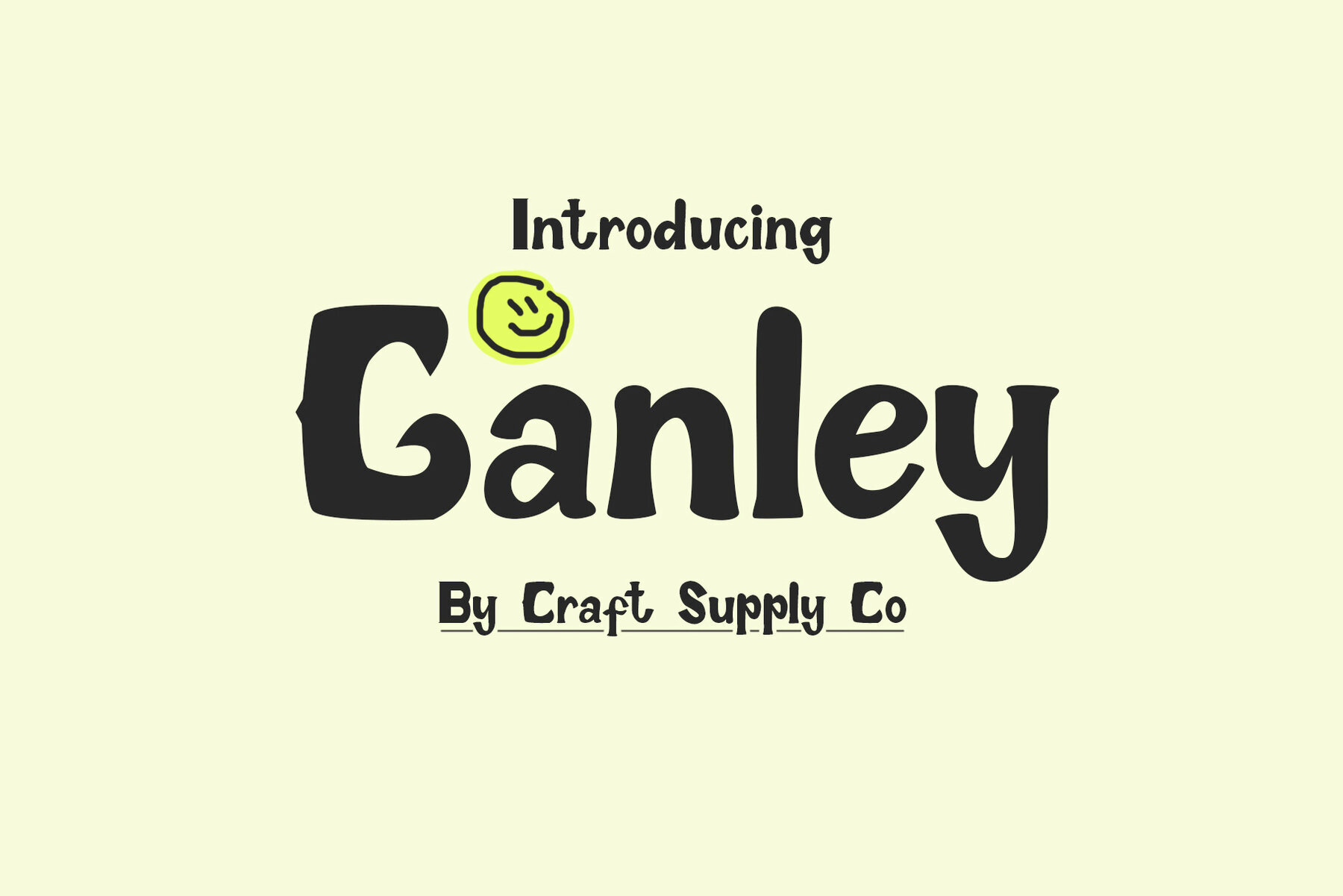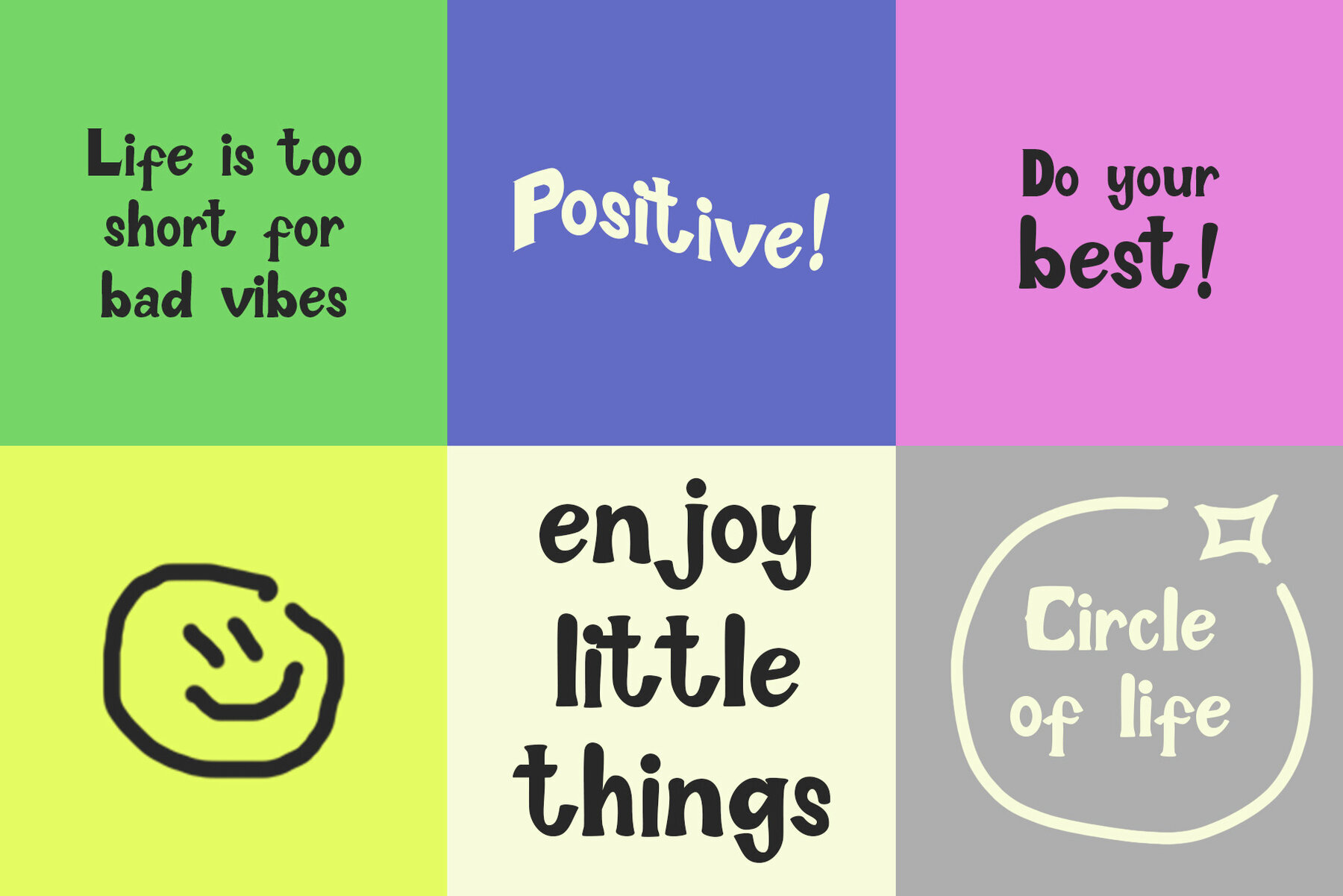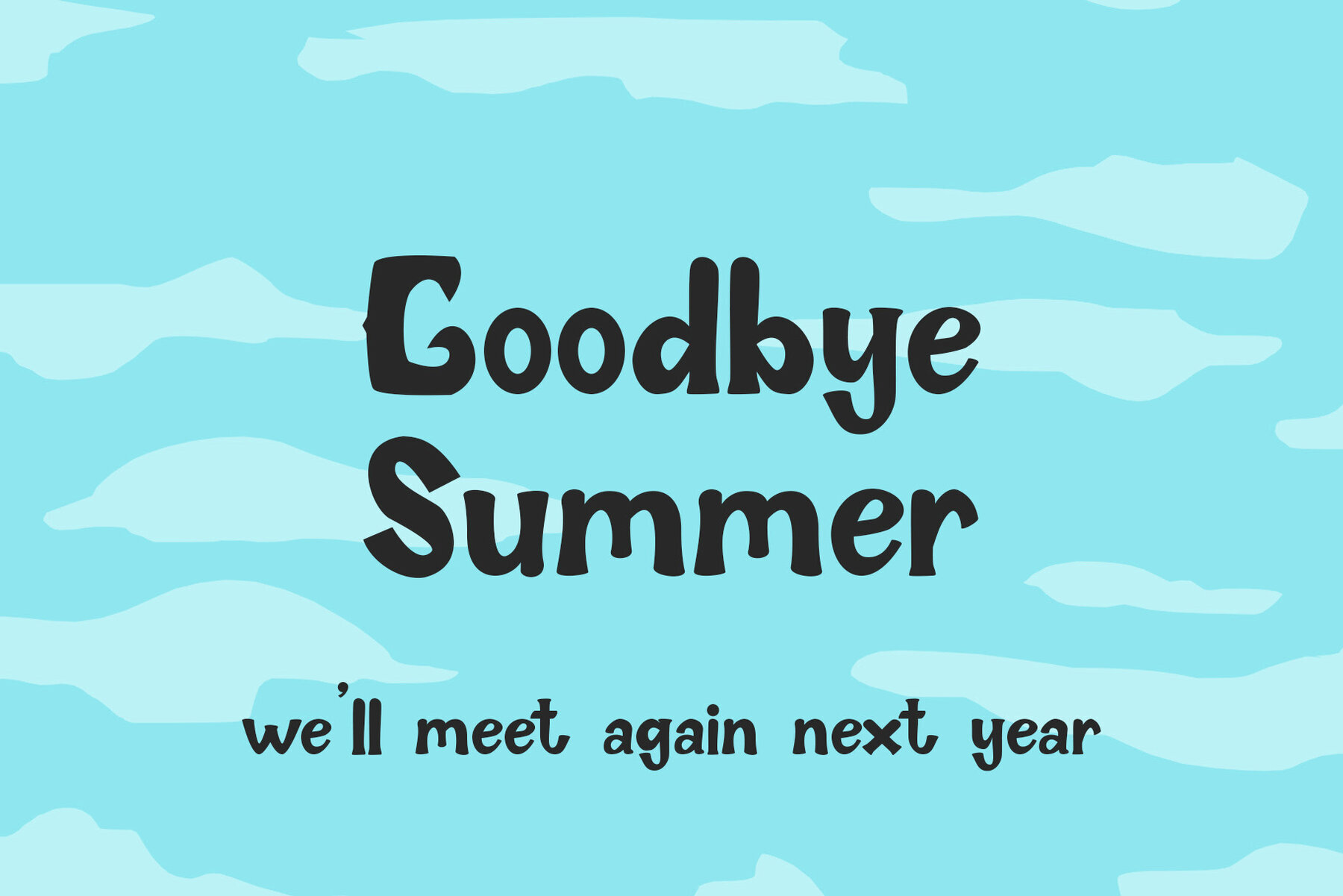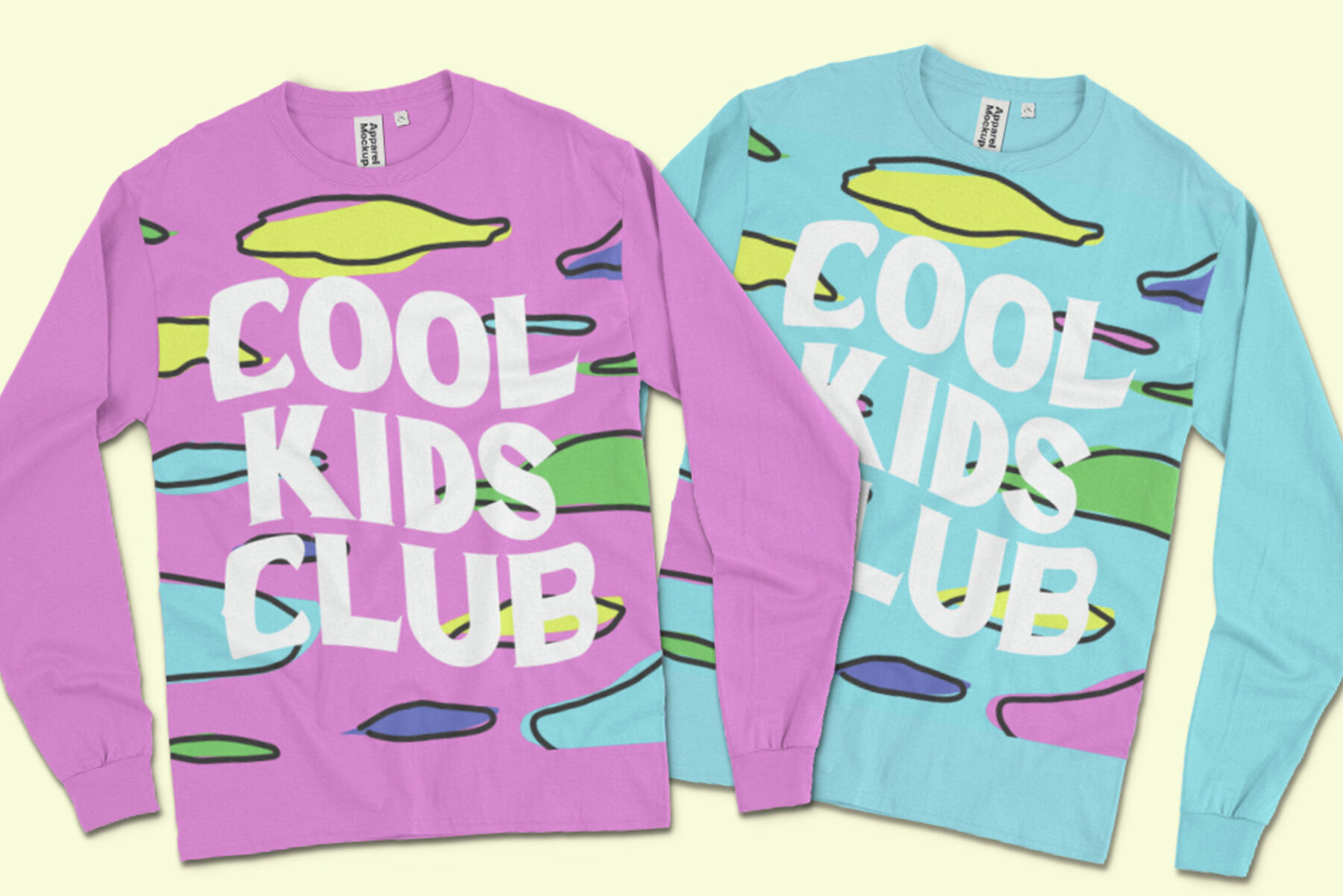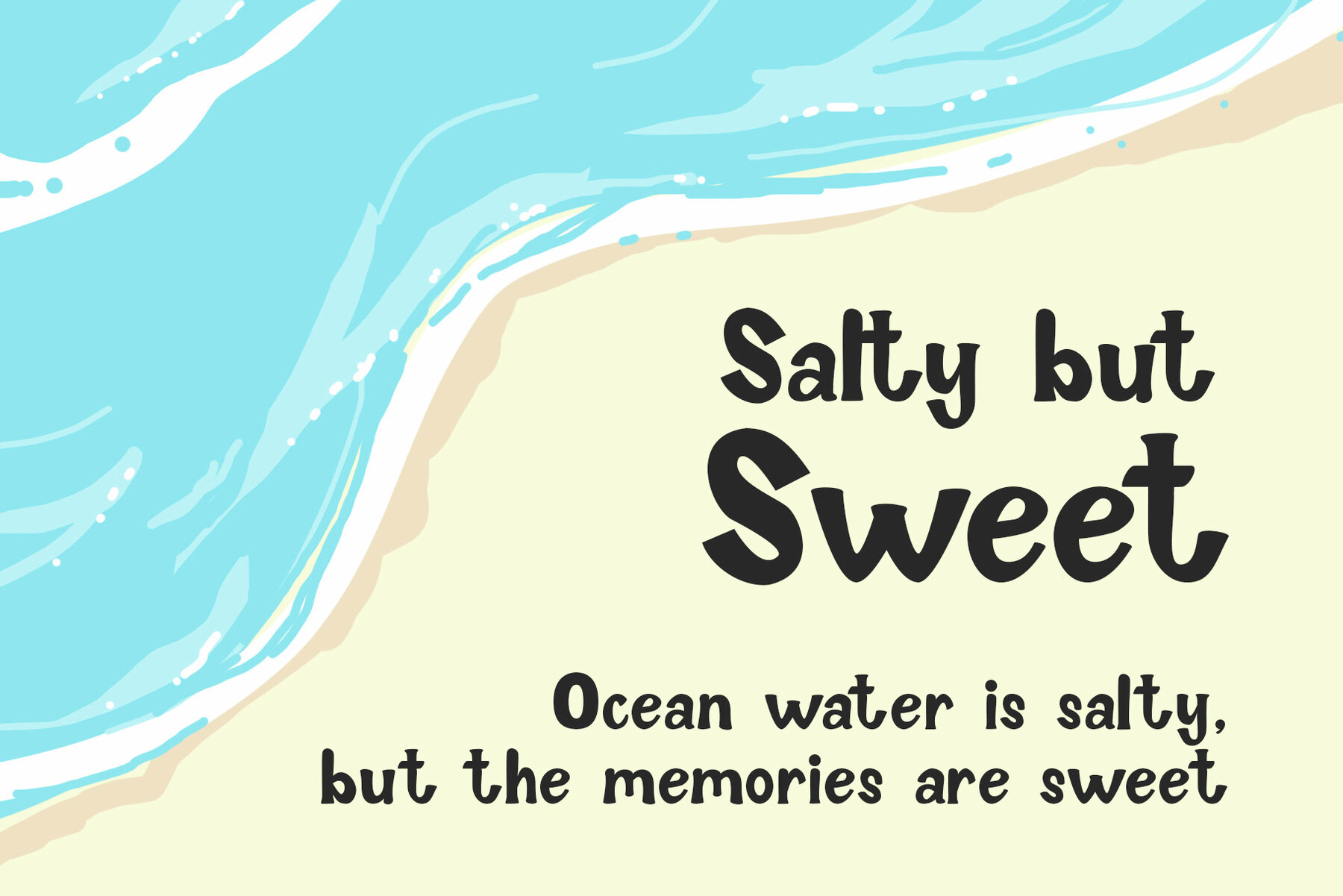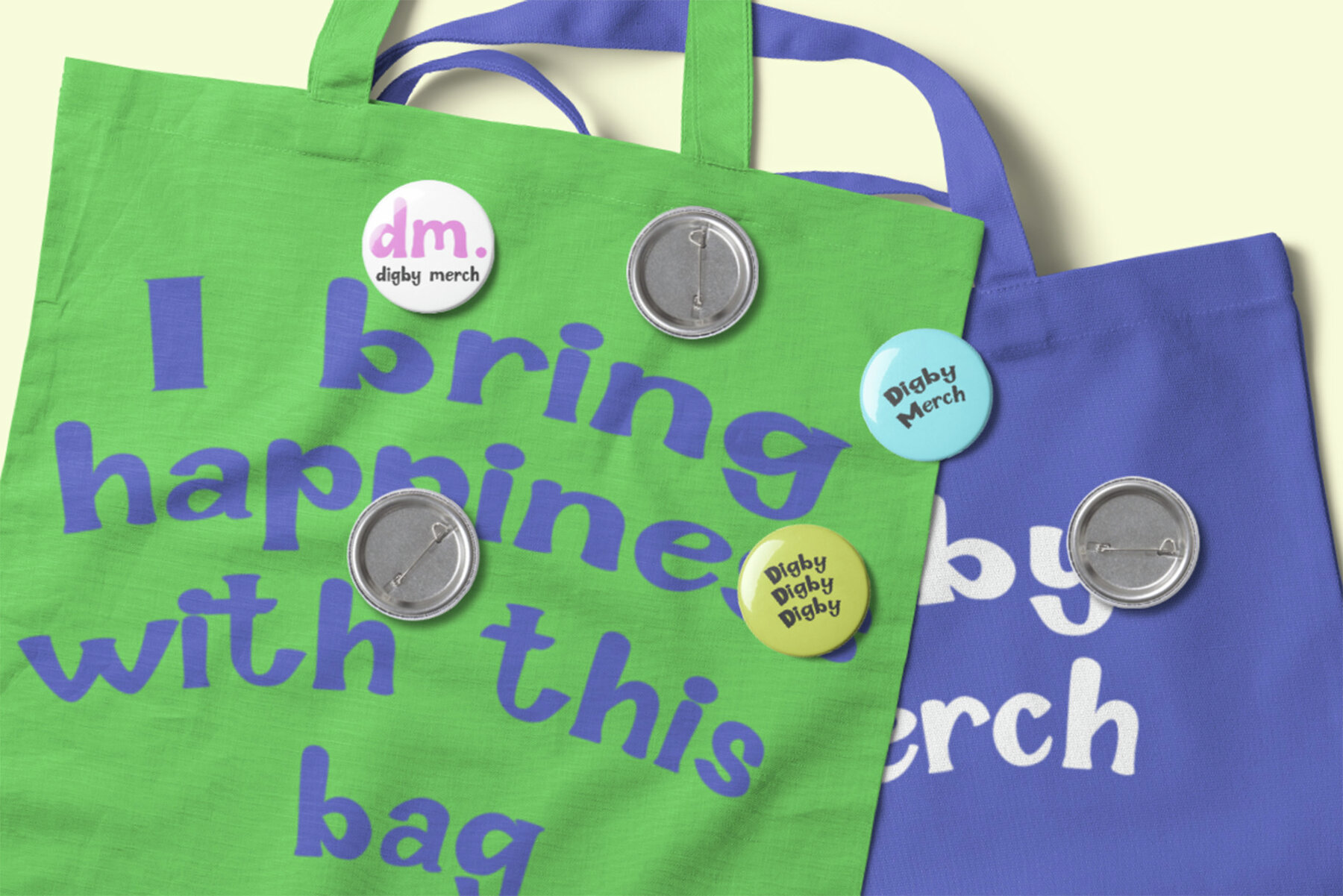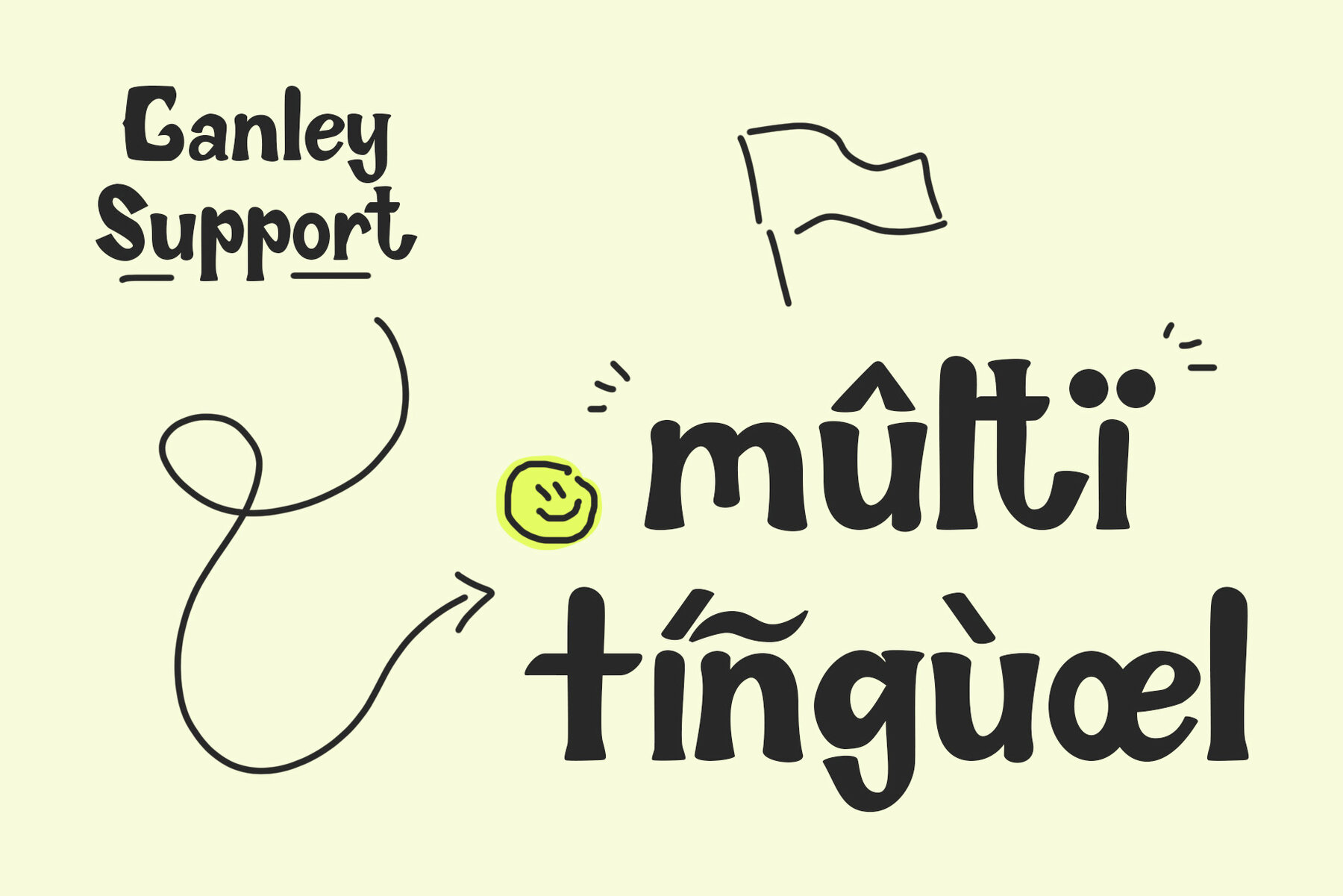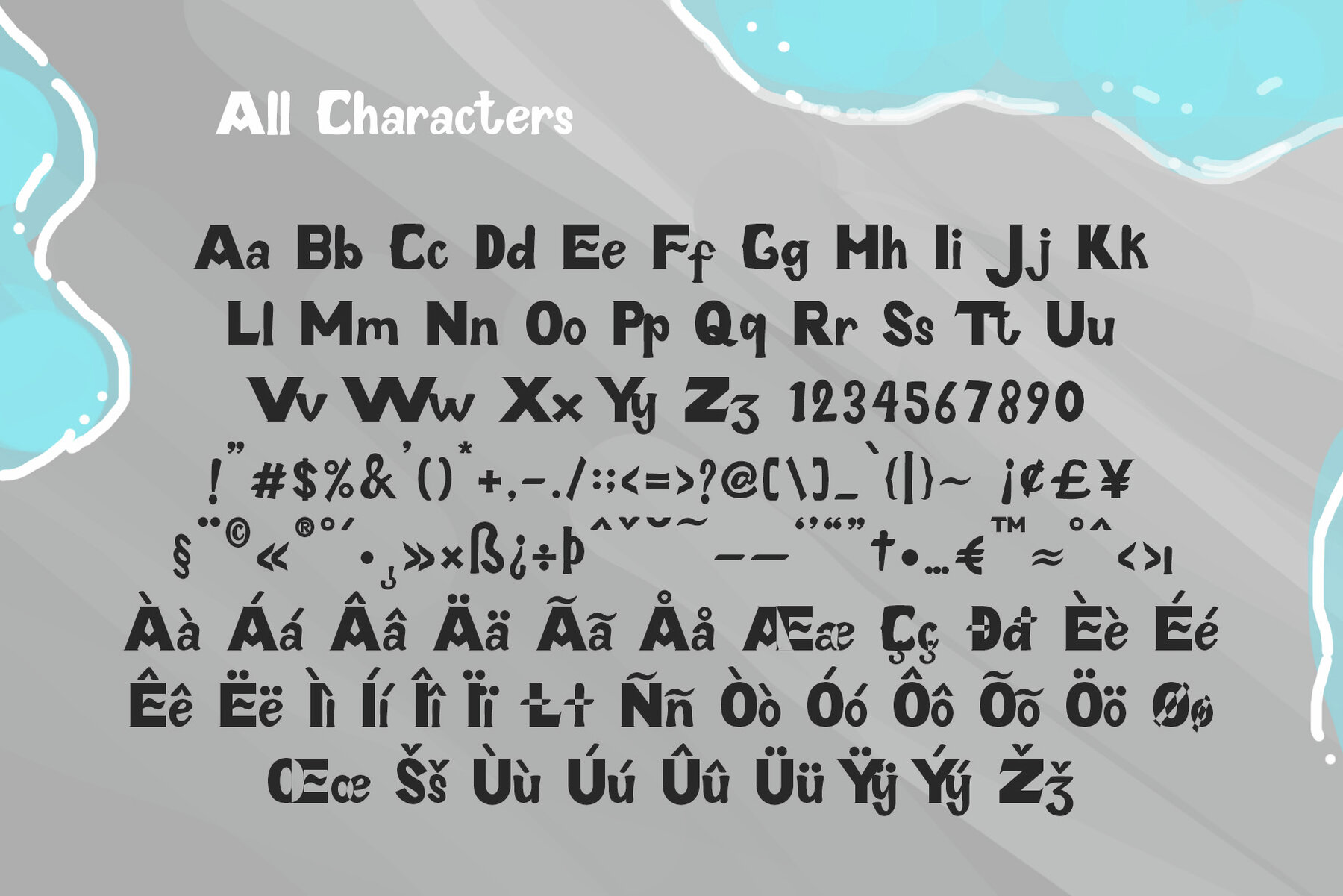
Ganley Font
Ganley Regular
Ganley cute font is a contemporary display font that radiates fun and playfulness, making it perfect for children’s themes and light-hearted designs. Ganley’s design is characterized by whimsical and cheerful letterforms. Its cute and quirky appearance instantly adds a touch of joy to any project. The font embodies a sense of innocence and laughter. This font maintains readability while embracing a delightful style. The letter spacing and proportions are thoughtfully crafted for easy comprehension, ensuring that children can enjoy reading and interacting with it. Ganley isn’t limited to just one application. It’s a versatile font that suits various creative endeavors, from children’s books and posters to party invitations and websites. Its adaptability knows no bounds. Ganley cute font is a font that spreads happiness and positivity. Its cheerful demeanor and contemporary charm resonate with audiences of all ages, making it a delightful choice for projects that aim to bring smiles and laughter. Ganley – where fun meets design!Introducing Ganley Cute Font
Playful Design
Child-Friendly Readability
Versatility in Design
Spreading Happiness